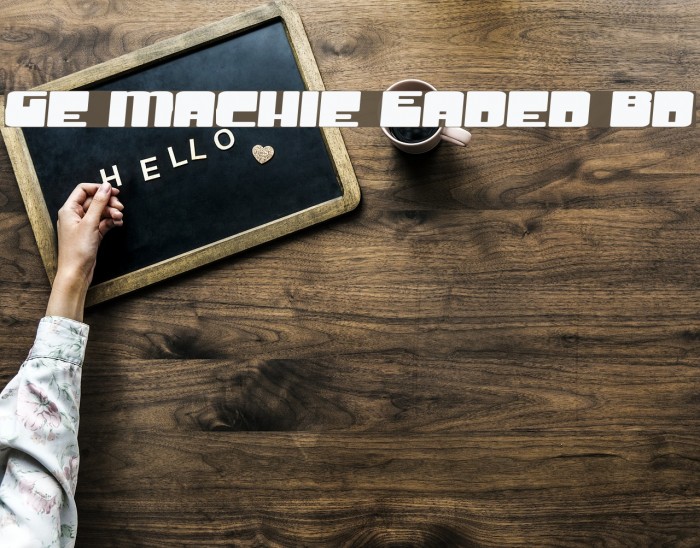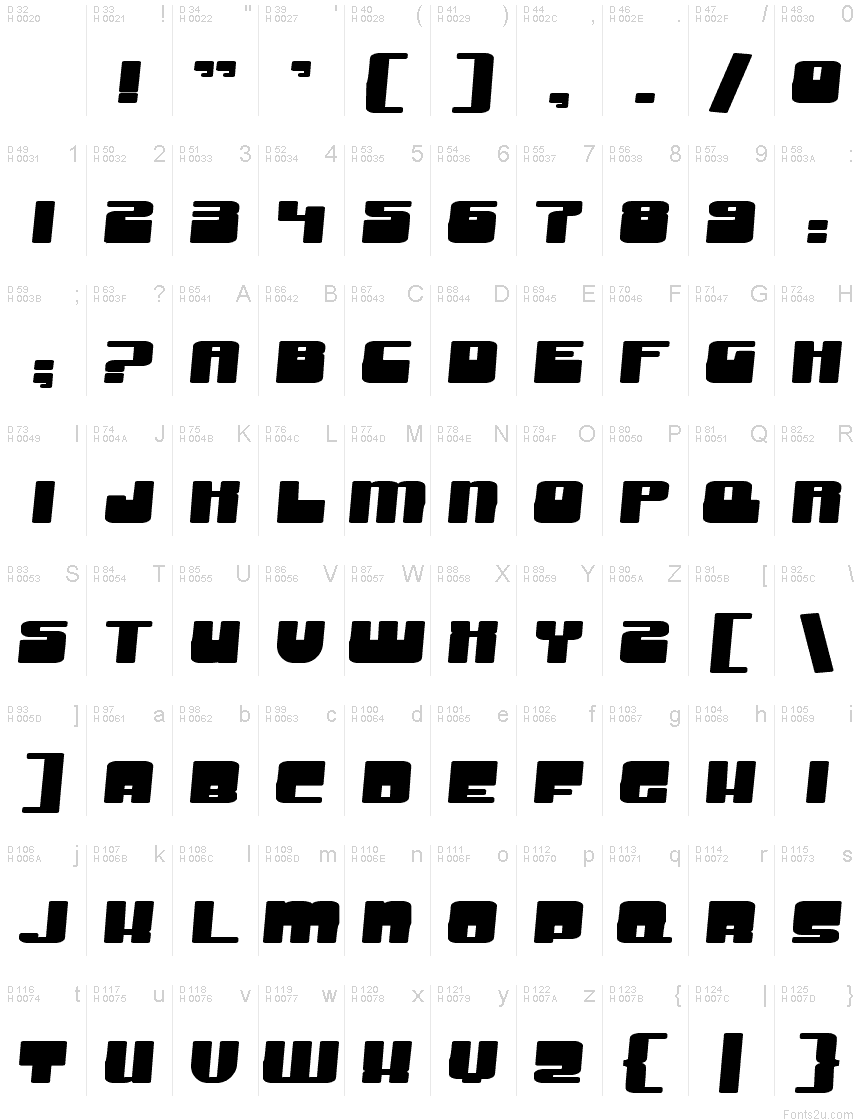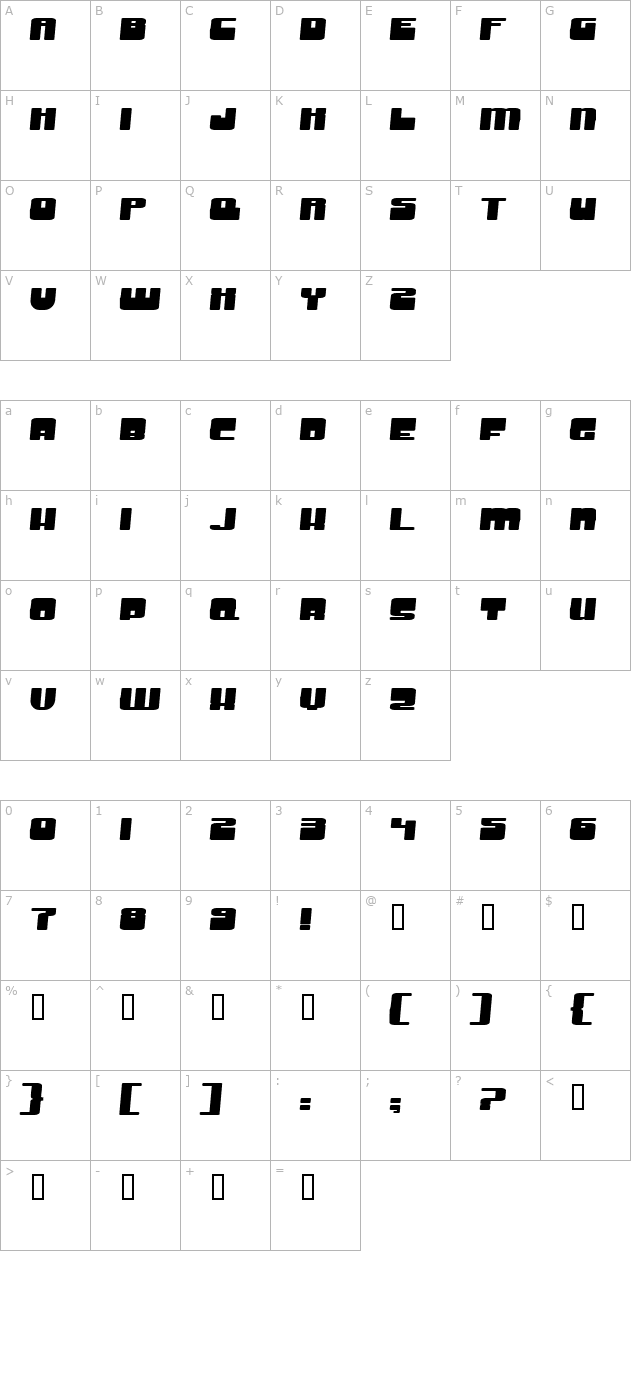
Groove Machine Font . Download sf groove machine font family · free for personal use · a typeface that's just as groovy as johnny bravo, sf groove machine contains. Download and install the sf groove machine font by shy fonts. Free download of sf groove machine font family with 8 styles. A typeface that's just as groovy as johnny bravo, sf groove machine contains lowercase and uppercase letters, numbers, punctuation, and. Moreover, you can embed it to your website. Click now to create a custom image with your own words that you can download. The sf groove machine font has been downloaded 5,592 times.
SF Groove Machine free font Groove Machine Font A typeface that's just as groovy as johnny bravo, sf groove machine contains lowercase and uppercase letters, numbers, punctuation, and. The sf groove machine font has been downloaded 5,592 times. Download sf groove machine font family · free for personal use · a typeface that's just as groovy as johnny bravo, sf groove machine contains. Free download of sf groove. Groove Machine Font.
Groove Machine Bold truetype font Groove Machine Font Click now to create a custom image with your own words that you can download. The sf groove machine font has been downloaded 5,592 times. A typeface that's just as groovy as johnny bravo, sf groove machine contains lowercase and uppercase letters, numbers, punctuation, and. Free download of sf groove machine font family with 8 styles. Download and install the. Groove Machine Font.
Groove 6336 Macromedia Fontographer 4.1 3 Groove Machine Font Download sf groove machine font family · free for personal use · a typeface that's just as groovy as johnny bravo, sf groove machine contains. Free download of sf groove machine font family with 8 styles. The sf groove machine font has been downloaded 5,592 times. Moreover, you can embed it to your website. A typeface that's just as groovy. Groove Machine Font.
Groove Machine Expanded Bold Font Groove Machine Font The sf groove machine font has been downloaded 5,592 times. A typeface that's just as groovy as johnny bravo, sf groove machine contains lowercase and uppercase letters, numbers, punctuation, and. Download sf groove machine font family · free for personal use · a typeface that's just as groovy as johnny bravo, sf groove machine contains. Click now to create a. Groove Machine Font.